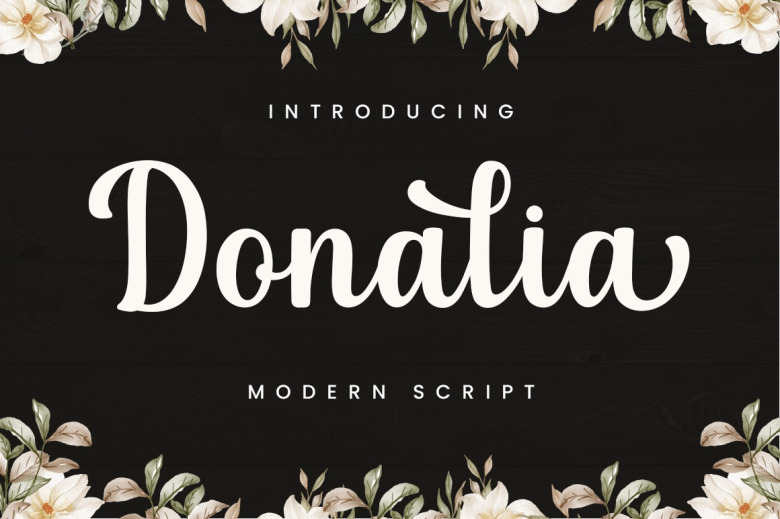
Donalia Font
Donalia Calligraphy Font certainly lends itself well to elegant projects with its modern yet refined script. One could utilize its clean yet flowing lines in invitations for weddings both grand and intimate, in birth announcements or thank you cards conveying deep gratitude. Its glyphs and alternative characters allow for expresive variation within a piece when producing logos or titles.
Watermarks or labels taking advantage of Donalia’s flair would imbue any medium with an air of sophistication. From formal to informal works its application knows few bounds, whether drafting correspondence or drafting designs its versatility remains asset.
Donalia Calligraphy Script Font